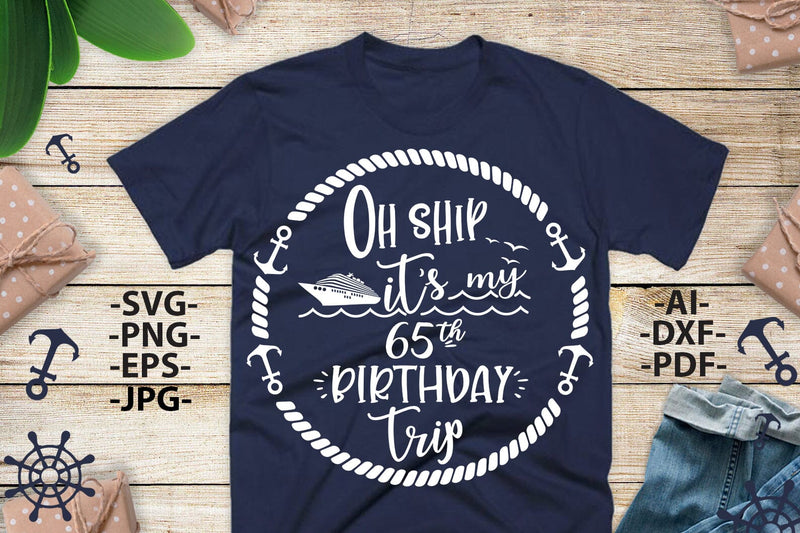
Celebrate 65 fabulous years with a splash of humor! 🎉 This fun “Oh Ship It’s My 65th Birthday Trip” SVG design is perfect for cruise adventures, birthday shirts, or nautical-themed parties. Whether you're setting sail or just dreaming of the ocean breeze, this playful design will make your birthday unforgettable! 🚢⚓
⚓ Design Features:
• Bold nautical rope frame with anchors
• Cruise ship and ocean waves
• Fun hand-lettered typography for birthday celebrations
• Clean, easy-to-cut vector style